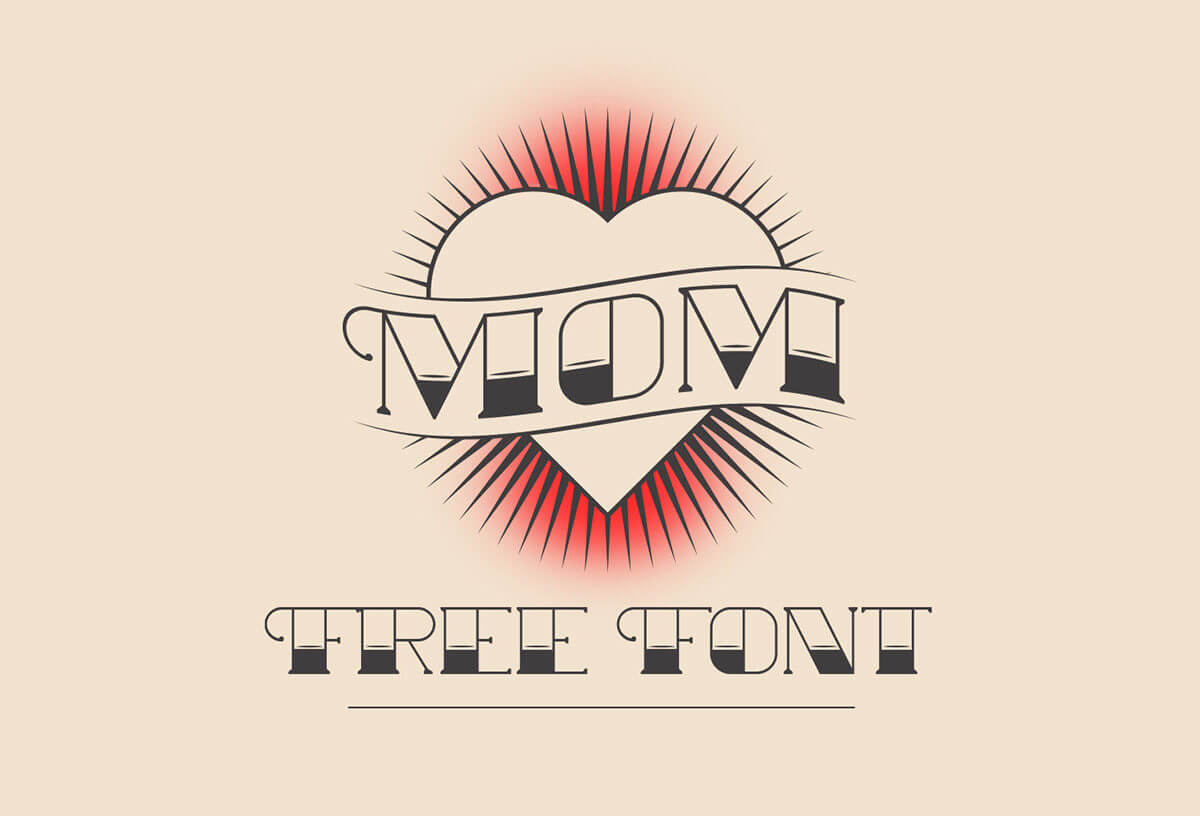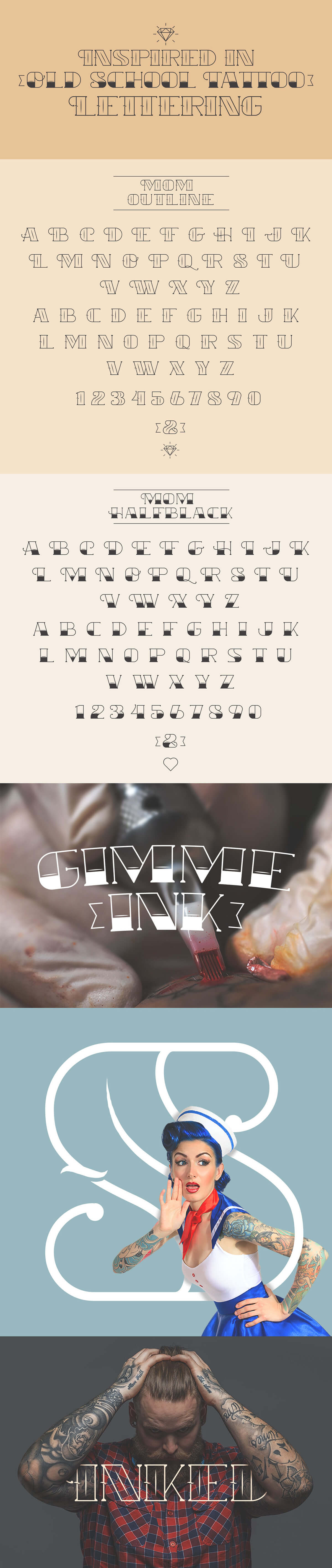
MOM free font is inspired in the old school Tattoo lettering, it’s really cool for those works that require this kind of look the author, Rafa Miguel, says he wanted to pay a tribute to those great artists that use this style. Well it’s a great tribute for sure : ) don’t miss this great font.